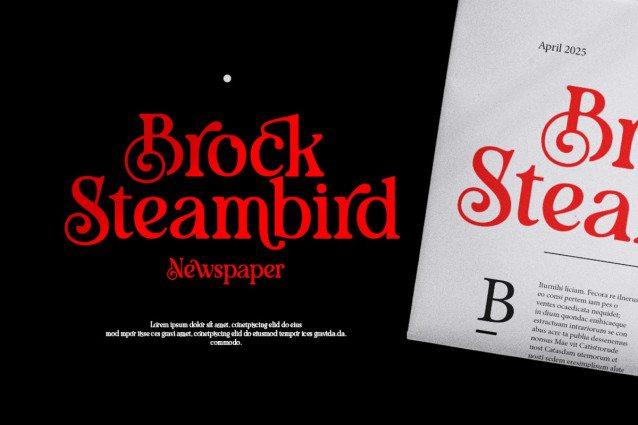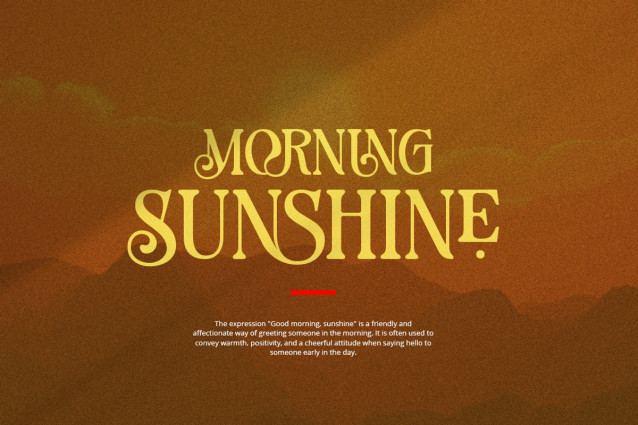
Shigat Font
Shigat Font a sophisticated serif font that seamlessly blends unique and modern design elements to elevate your typographic expression. This font stands out with its distinctive serifs, lending a touch of elegance and refinement to any project. What sets Shigat apart are its extensive ligatures and alternates, adding a level of fluidity and cohesiveness to your text. These ligatures enhance the overall visual harmony, creating a smooth and seamless reading experience. Whether you’re designing for print or digital platforms, Shigat’s ligatures contribute to a polished and professional appearance.
| Designer Name: | Grontype |